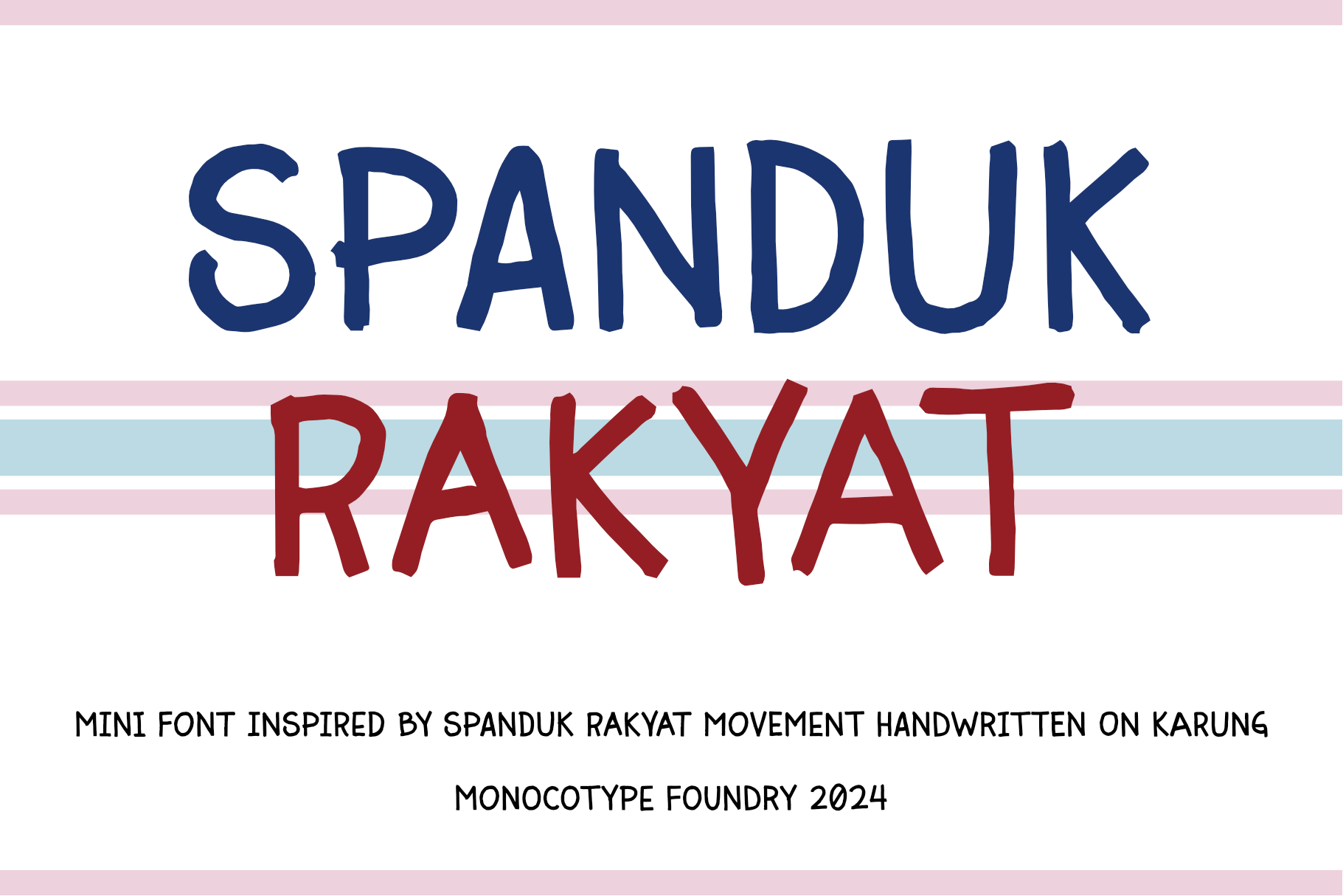
Spanduk Rakyat Mini Font
In the midst of political seasons, People's Banners, also known as Spanduk Rakyat, emerge as a prominent emblem representing the voices of the lower classes during demonstrations. Faced with the prohibitive costs of traditional printing, a pragmatic alternative takes shape by employing sacks as a canvas and makeshift paint to authentically convey their expressions.
This mini font draws inspiration from the ethos of this movement, where each keystroke generates a "random" letter shape. This feature encapsulates the diverse and spontaneous letter forms observed when individuals inscribe their aspirations on banners. The font serves as a digital homage to the grassroots spirit, bridging the gap between the virtual and the tangible, and preserving the distinctive essence of the lower classes' messages in the face of economic challenges.